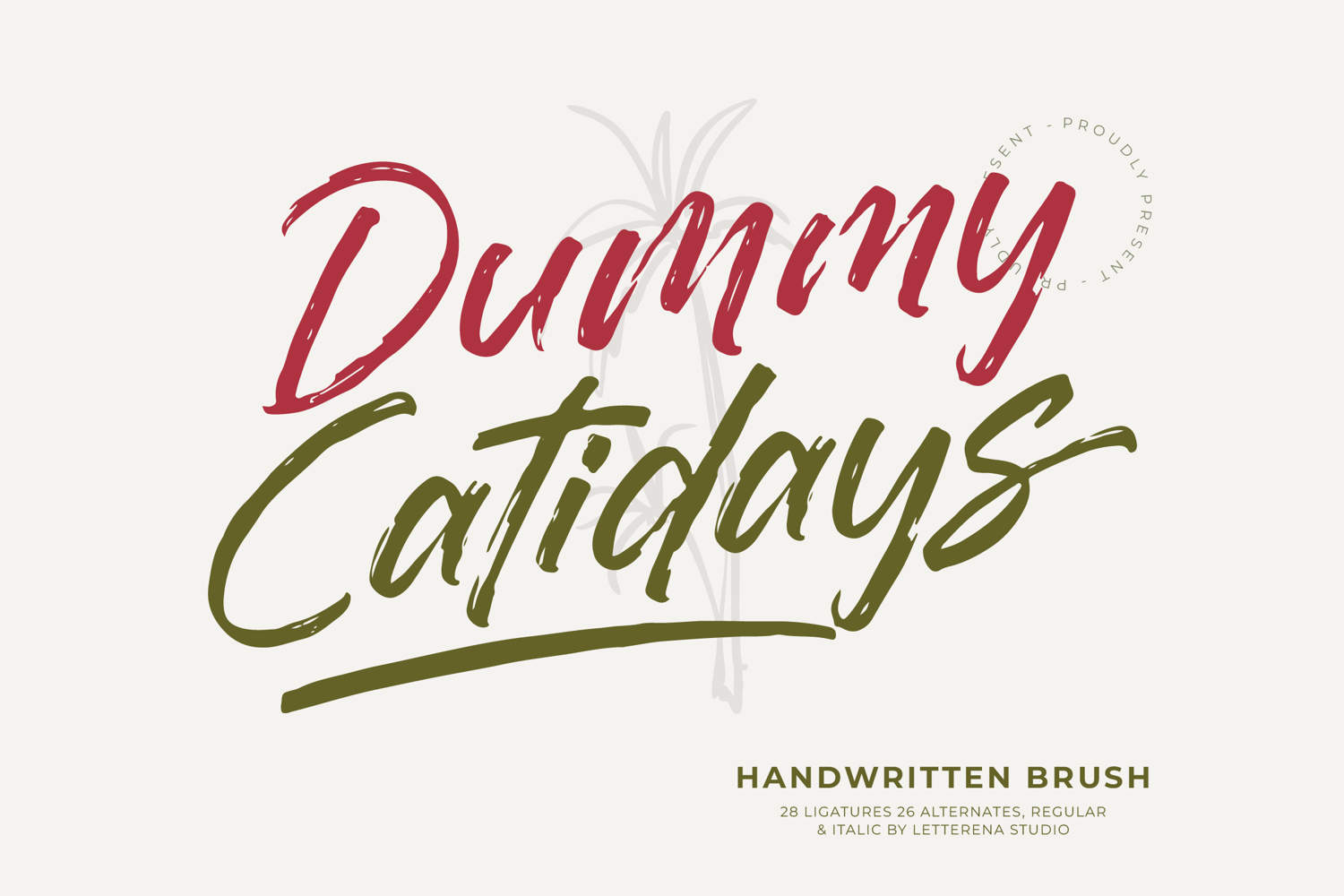
Dummy Catidays Handwritten Brush Font
Dummy Catidays
Dummy Catidays Italic
Dummy Catidays - Handwritten Brush Font , from Letterena, is a Luxury Script font, suitable for any projects such as: logos, branding projects, homeware designs, product packaging, mugs, quotes, posters, shopping bags, t-shirts, book covers, name card, invitation cards, greeting cards, label, photography, watermark, special events, and all your other luxury and beautiful projects that need a Luxury Script taste.
28 Ligature 26 Alternate & Swashes